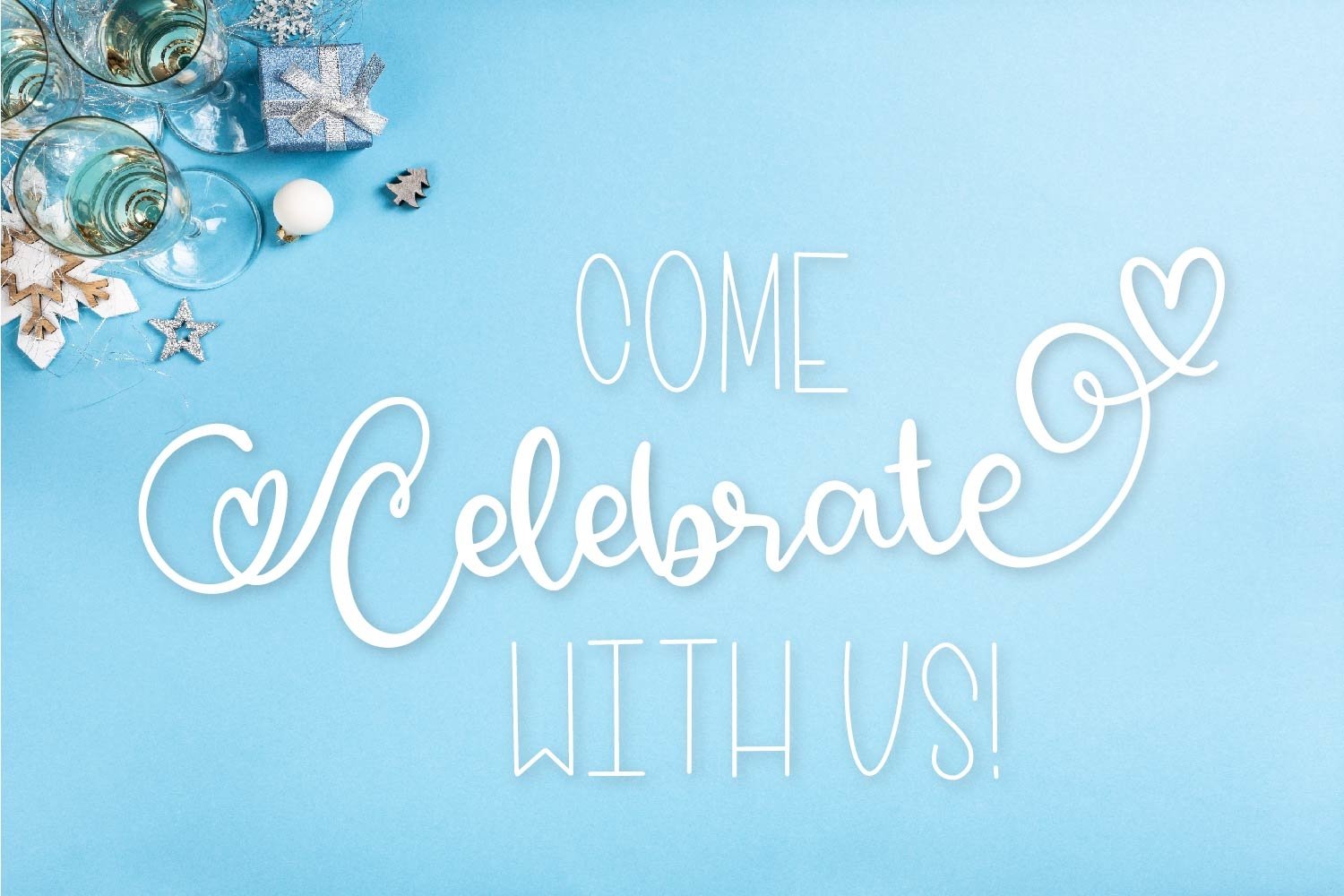
12+ Script Font Heart Creativefabrica. Today, we have shared the have heart script font for free download. Cursive · script · feminine · masculine · formal · informal · messy · neat · scribbled · brushed · graffiti · … heart, cursive fonts. We love these free heart fonts and dingbats. The lovea calligraphy script font free download. My heart script script my new font is a unique blend of classic and modern fonts. You can download this in different file formats like ttf, otf, and many others. Home › script › brush › have heart script font. They all have a heart symbol somewhere in the letters. Beautiful heart script font a romantic calligraphy script font. Inspired by modern calligraphy, this font will delight you with its romantic charm, elegance, lightness. Style and partner perfect, like dance, smooth, clean and simple. Beautiful heart script free for personal use, please visit his store for more other products, and beautiful heart script font. If you don't see a heart in the previews, it might be another character or style in the font family. My heart script is suitable for wedding, event. 1001 free fonts offers a huge selection of free fonts.
Have Heart Script Font Free Download Cofonts. My heart script is suitable for wedding, event. 1001 free fonts offers a huge selection of free fonts. Beautiful heart script free for personal use, please visit his store for more other products, and beautiful heart script font. Today, we have shared the have heart script font for free download. Style and partner perfect, like dance, smooth, clean and simple. Inspired by modern calligraphy, this font will delight you with its romantic charm, elegance, lightness. Beautiful heart script font a romantic calligraphy script font. If you don't see a heart in the previews, it might be another character or style in the font family. The lovea calligraphy script font free download. We love these free heart fonts and dingbats. Home › script › brush › have heart script font. Cursive · script · feminine · masculine · formal · informal · messy · neat · scribbled · brushed · graffiti · … heart, cursive fonts. My heart script script my new font is a unique blend of classic and modern fonts. You can download this in different file formats like ttf, otf, and many others. They all have a heart symbol somewhere in the letters.
How to install font windows : Collection by honeybops sweet custom printables just for you! Floral hearts script is a modern calligraphy font with contemporary, sophisticated accents. Then don't ignore have heart typeface! Today, we have shared the have heart script font for free download. Beautiful heart script font a romantic calligraphy script font. Have heart is script font and designed by sam parrett.
Beautiful heart script font a romantic calligraphy script font. Looking for script free font download? Install the font first before use. Decorative, font, font family, hipster, otf, retro fonts, roman, set, ttf. Votes, rated based on results identification. The lovea calligraphy script font free download. My heart script is suitable for wedding, event. Beautiful heart script font is a calligraphy script font, this font is perfect for logo, invitation, stationery, wedding designs, social media posts, advertisements, product packaging, product designs. Licensed for personal and commercial use. Uploaded by sandy (1 styles). It is perfect for branding, wedding invites and cards. Beauty heart script by copyright (c) 2016 by ferry hadriyan (fey design). You can download this in different file formats like ttf, otf, and many others. Inspired by modern calligraphy, this font will delight you with its romantic charm, elegance, lightness. Home › script › brush › have heart script font. Beauty heart script font 2.98/5. Style and partner perfect, like dance, smooth, clean and simple. The artists/designers of this beautiful tyeface are yasri and suci sarah. Beautiful heart script font a romantic calligraphy script font. My heart script script my new font is a unique blend of classic and modern fonts. Lovea modern style script font suitable for feminine logos, branding, greeting cards, flyer or poster design, business cards, save the date. Selesia heart font is suitable for any design needs, modern invitation design, branding, blog design, modern advertising design, invitation, art quote, home decor, book/cover title, invitation, special. Cursive · script · feminine · masculine · formal · informal · messy · neat · scribbled · brushed · graffiti · … heart, cursive fonts. The best selection of script fonts for windows and macintosh. Then don't ignore have heart typeface! 4 results match your filter. How to install font windows : This is a handwriting calligraphy font , handcrafted from our studio here in indonesia. Script heart handwritten various euro accents. If you don't see a heart in the previews, it might be another character or style in the font family. Beautiful heart script free for personal use, please visit his store for more other products, and beautiful heart script font.
Hello Heart Font By Romie Creative Fabrica. Beautiful heart script font a romantic calligraphy script font. Inspired by modern calligraphy, this font will delight you with its romantic charm, elegance, lightness. My heart script is suitable for wedding, event. Style and partner perfect, like dance, smooth, clean and simple. If you don't see a heart in the previews, it might be another character or style in the font family. Today, we have shared the have heart script font for free download. Home › script › brush › have heart script font. We love these free heart fonts and dingbats. 1001 free fonts offers a huge selection of free fonts. You can download this in different file formats like ttf, otf, and many others. They all have a heart symbol somewhere in the letters. My heart script script my new font is a unique blend of classic and modern fonts. Cursive · script · feminine · masculine · formal · informal · messy · neat · scribbled · brushed · graffiti · … heart, cursive fonts. Beautiful heart script free for personal use, please visit his store for more other products, and beautiful heart script font. The lovea calligraphy script font free download.
They all have a heart symbol somewhere in the letters.
Have Heart Script Font Free Download. Today, we have shared the have heart script font for free download. 1001 free fonts offers a huge selection of free fonts. We love these free heart fonts and dingbats. The lovea calligraphy script font free download. Beautiful heart script free for personal use, please visit his store for more other products, and beautiful heart script font. Style and partner perfect, like dance, smooth, clean and simple. Cursive · script · feminine · masculine · formal · informal · messy · neat · scribbled · brushed · graffiti · … heart, cursive fonts. If you don't see a heart in the previews, it might be another character or style in the font family. They all have a heart symbol somewhere in the letters. You can download this in different file formats like ttf, otf, and many others. Beautiful heart script font a romantic calligraphy script font. My heart script is suitable for wedding, event. Inspired by modern calligraphy, this font will delight you with its romantic charm, elegance, lightness. My heart script script my new font is a unique blend of classic and modern fonts. Home › script › brush › have heart script font.
Have Heart Script Font Befonts Com. My heart script script my new font is a unique blend of classic and modern fonts. Home › script › brush › have heart script font. 1001 free fonts offers a huge selection of free fonts. Beautiful heart script font a romantic calligraphy script font. If you don't see a heart in the previews, it might be another character or style in the font family. Inspired by modern calligraphy, this font will delight you with its romantic charm, elegance, lightness. Beautiful heart script free for personal use, please visit his store for more other products, and beautiful heart script font. Style and partner perfect, like dance, smooth, clean and simple. The lovea calligraphy script font free download. You can download this in different file formats like ttf, otf, and many others. Cursive · script · feminine · masculine · formal · informal · messy · neat · scribbled · brushed · graffiti · … heart, cursive fonts. We love these free heart fonts and dingbats. My heart script is suitable for wedding, event. They all have a heart symbol somewhere in the letters. Today, we have shared the have heart script font for free download.
They all have a heart symbol somewhere in the letters.
Free Beautiful Heart Script Font Freedesignclub Com. We love these free heart fonts and dingbats. 1001 free fonts offers a huge selection of free fonts. My heart script is suitable for wedding, event. Beautiful heart script free for personal use, please visit his store for more other products, and beautiful heart script font. If you don't see a heart in the previews, it might be another character or style in the font family. You can download this in different file formats like ttf, otf, and many others. Inspired by modern calligraphy, this font will delight you with its romantic charm, elegance, lightness. They all have a heart symbol somewhere in the letters. Home › script › brush › have heart script font. My heart script script my new font is a unique blend of classic and modern fonts. Today, we have shared the have heart script font for free download. Style and partner perfect, like dance, smooth, clean and simple. Beautiful heart script font a romantic calligraphy script font. Cursive · script · feminine · masculine · formal · informal · messy · neat · scribbled · brushed · graffiti · … heart, cursive fonts. The lovea calligraphy script font free download.
Beautiful Heart Script Font Befonts Com. Inspired by modern calligraphy, this font will delight you with its romantic charm, elegance, lightness. Beautiful heart script font a romantic calligraphy script font. They all have a heart symbol somewhere in the letters. My heart script is suitable for wedding, event. My heart script script my new font is a unique blend of classic and modern fonts. Home › script › brush › have heart script font. Today, we have shared the have heart script font for free download. You can download this in different file formats like ttf, otf, and many others. Beautiful heart script free for personal use, please visit his store for more other products, and beautiful heart script font. Style and partner perfect, like dance, smooth, clean and simple. Cursive · script · feminine · masculine · formal · informal · messy · neat · scribbled · brushed · graffiti · … heart, cursive fonts. 1001 free fonts offers a huge selection of free fonts. The lovea calligraphy script font free download. If you don't see a heart in the previews, it might be another character or style in the font family. We love these free heart fonts and dingbats.
Beautiful Heart Script Font Dafont Free. They all have a heart symbol somewhere in the letters. Today, we have shared the have heart script font for free download. We love these free heart fonts and dingbats. If you don't see a heart in the previews, it might be another character or style in the font family. Beautiful heart script free for personal use, please visit his store for more other products, and beautiful heart script font. Cursive · script · feminine · masculine · formal · informal · messy · neat · scribbled · brushed · graffiti · … heart, cursive fonts. 1001 free fonts offers a huge selection of free fonts. Beautiful heart script font a romantic calligraphy script font. My heart script script my new font is a unique blend of classic and modern fonts. The lovea calligraphy script font free download. You can download this in different file formats like ttf, otf, and many others. My heart script is suitable for wedding, event. Inspired by modern calligraphy, this font will delight you with its romantic charm, elegance, lightness. Home › script › brush › have heart script font. Style and partner perfect, like dance, smooth, clean and simple.
Cursive Heart Fonts Fontspace. Cursive · script · feminine · masculine · formal · informal · messy · neat · scribbled · brushed · graffiti · … heart, cursive fonts. My heart script script my new font is a unique blend of classic and modern fonts. Beautiful heart script font a romantic calligraphy script font. The lovea calligraphy script font free download. Inspired by modern calligraphy, this font will delight you with its romantic charm, elegance, lightness. You can download this in different file formats like ttf, otf, and many others. If you don't see a heart in the previews, it might be another character or style in the font family. My heart script is suitable for wedding, event. Beautiful heart script free for personal use, please visit his store for more other products, and beautiful heart script font. 1001 free fonts offers a huge selection of free fonts. We love these free heart fonts and dingbats. They all have a heart symbol somewhere in the letters. Home › script › brush › have heart script font. Style and partner perfect, like dance, smooth, clean and simple. Today, we have shared the have heart script font for free download.
Font beauty heart script can be described in the following words:
They all have a heart symbol somewhere in the letters. Collection by honeybops sweet custom printables just for you! Check out our font with hearts selection for the very best in unique or custom, handmade pieces from our digital shops. This is a handwriting calligraphy font , handcrafted from our studio here in indonesia. They all have a heart symbol somewhere in the letters. Selesia heart font is suitable for any design needs, modern invitation design, branding, blog design, modern advertising design, invitation, art quote, home decor, book/cover title, invitation, special. Today, we have shared the have heart script font for free download. Decorative, font, font family, hipster, otf, retro fonts, roman, set, ttf. Browse worry, free commercial use fonts, web fonts, and app fonts tagged 'script+heart' at fontspring. Have heart is script font and designed by sam parrett.